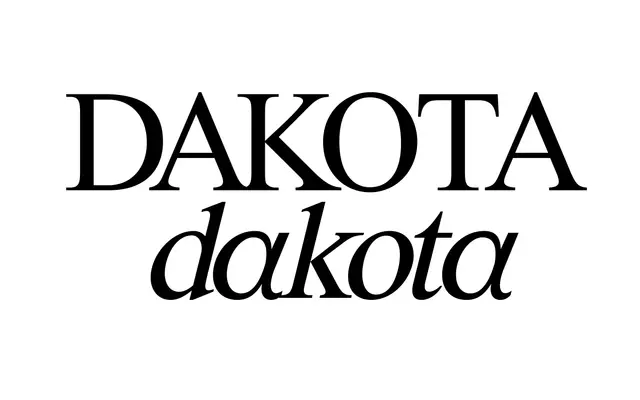
Dakota Serif
A single-weight serif with deliberately organic letterforms, referencing the aesthetic of archival Comme des Garçons printed matter.
Released in 2024 by Trulytype, Dakota Serif is a single-weight serif that leans into intentional irregularity, drawing inspiration from the contours of the human body and the ephemeral print culture of vintage fashion. The design aims for a balance between refinement and idiosyncrasy, suited to editorial, branding or fashion contexts that want a serif with personality rather than neutrality. Latin Extended coverage spans a wide range of European and African languages.
Described as having organic, imperfect qualities inspired by the human form, placing it within the humanist serif tradition where warmth and character take precedence over geometric precision.